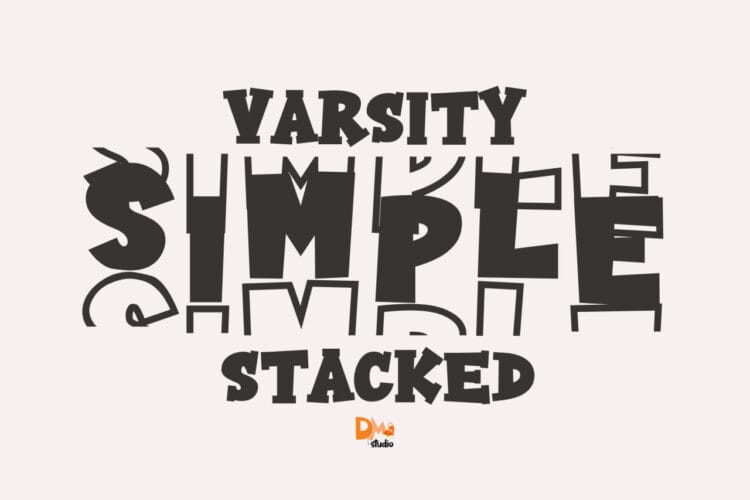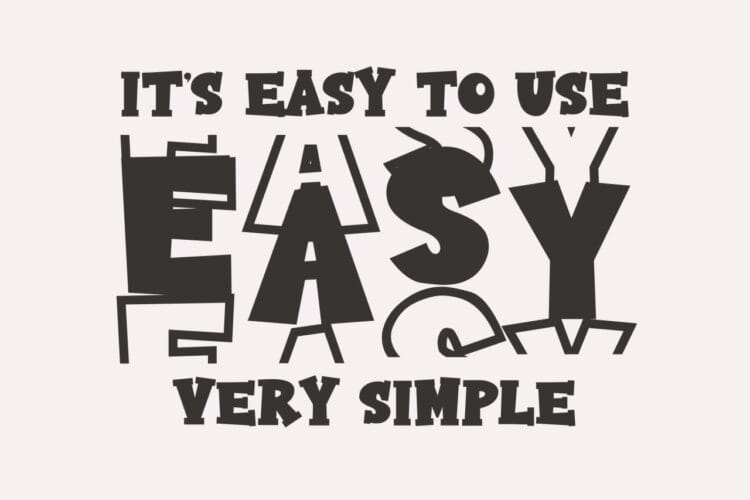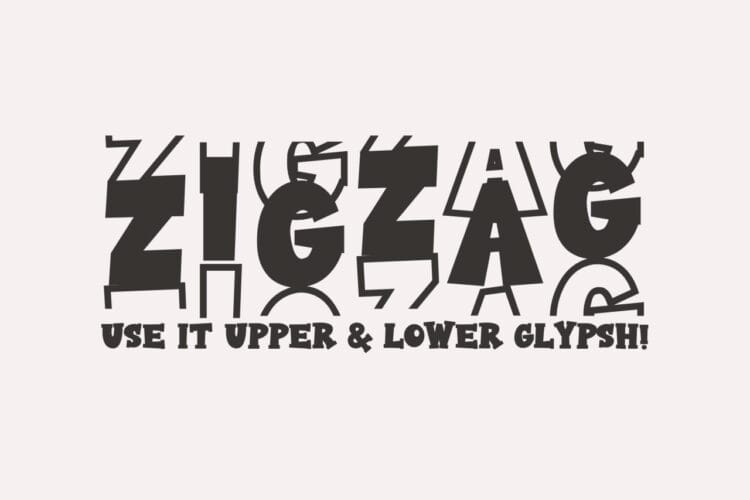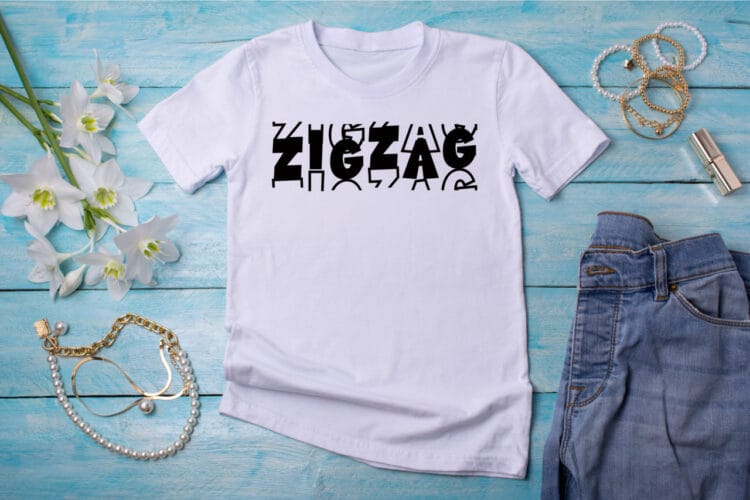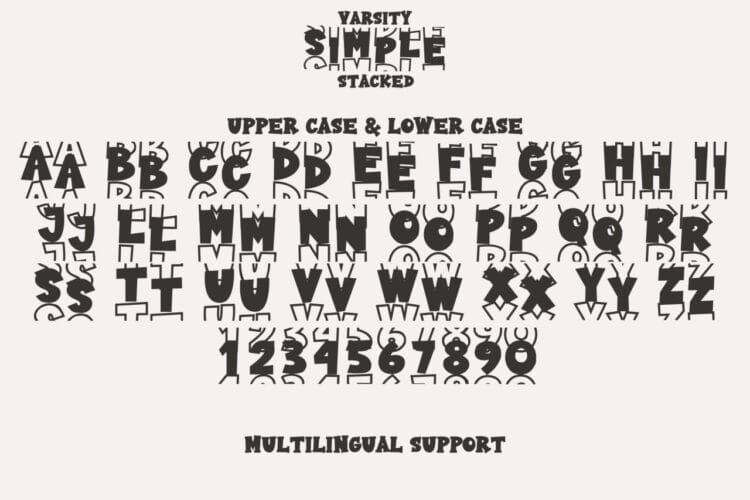
Meet Varsity Simple Stacked Font
Varsity Simple Stacked Font brings classic school energy to a tidy vertical build. Letters feel bold, rounded, and easy to read. Because each line stacks cleanly, short words turn into strong badges. Use it for jerseys, stickers, banners, thumbnails, and team merch. Moreover, it pairs well with simple sans serifs, so layouts stay neat and clear. Therefore, your titles pop on mobile and print with little effort.
Where the Stacked Font shines
Set names, class years, and punchy rally lines. For example, try “Game Day,” “Alumni 25,” or city initials. Since spacing is tuned for headlines, compositions come together in minutes. As a result, you can launch full sets for seasons, clubs, and tournaments. Plus, the stacked rhythm adds compact power without clutter.
Design tips with the Stacked Font
Keep copy short and let the letterforms lead. Pair headlines with a clean geometric sans for captions. Meanwhile, try double strokes, inner lines, or sticker borders for depth. Because the shapes are rounded, felt textures and light grain look great. Additionally, add a soft shadow to boost contrast on dark fabric. However, avoid long phrases. The Stacked Font hits hardest with names and numbers.
Why creators choose Varsity Simple Stacked
You want school spirit that fits tight spaces. This typeface delivers. It grabs attention in crowded feeds and speeds production. Also, it scales from sticker sheets to sideline banners without drama. Consequently, your shop moves from idea to listing with fewer edits and stronger results.